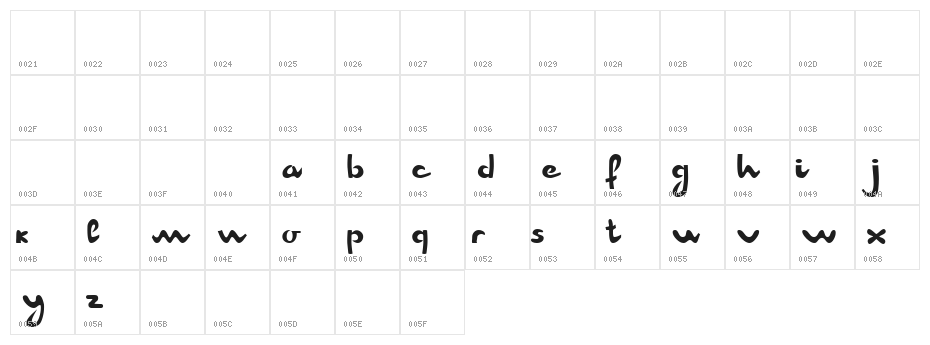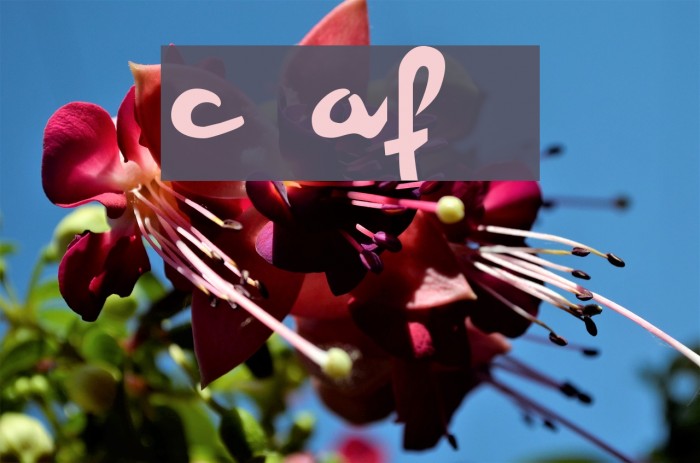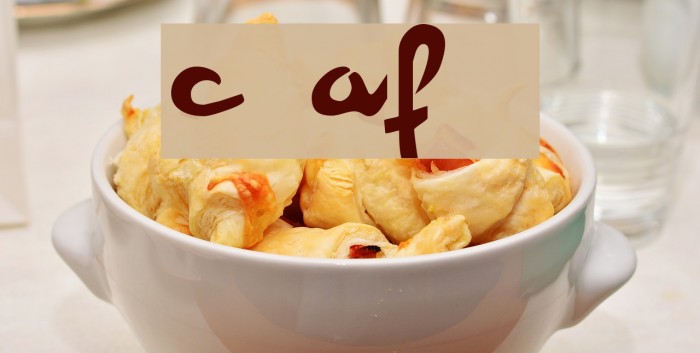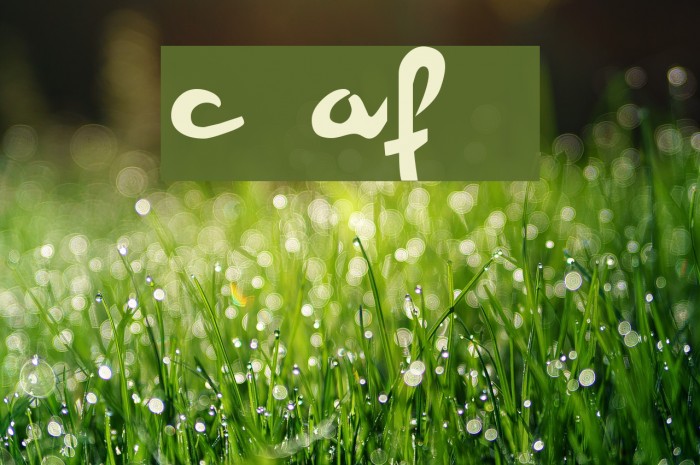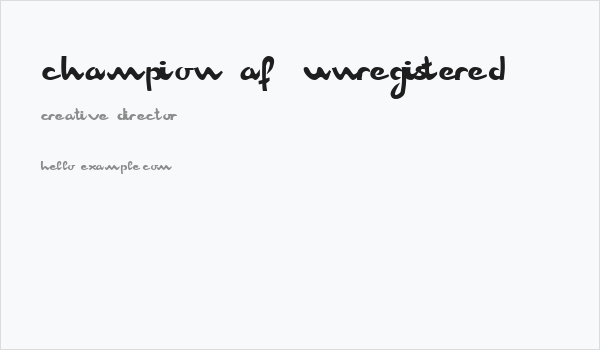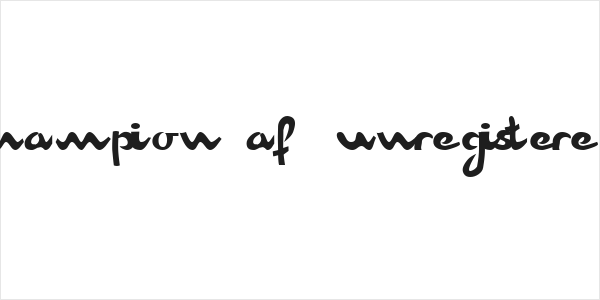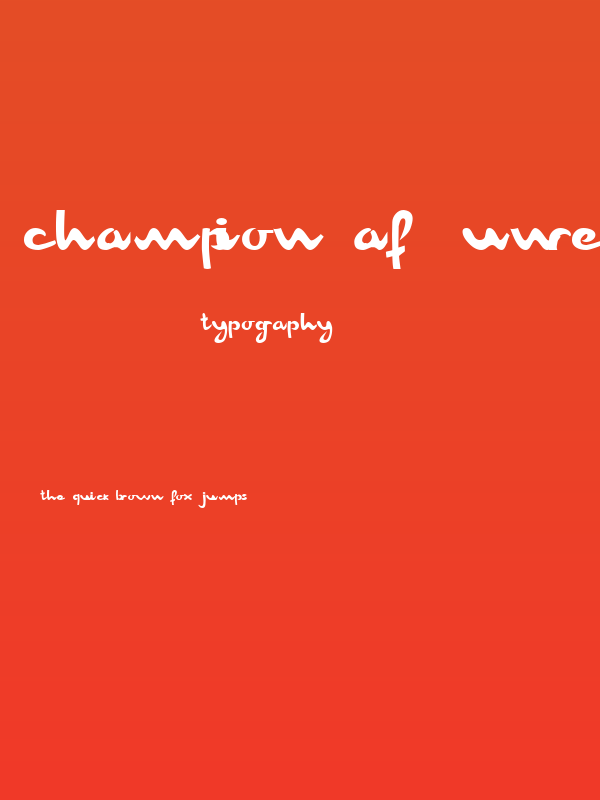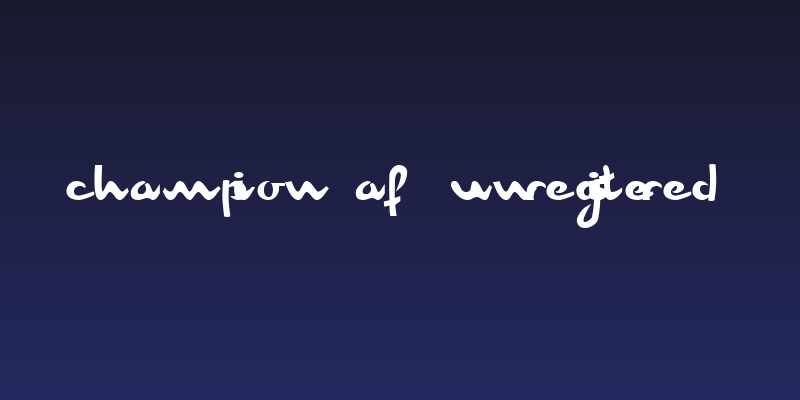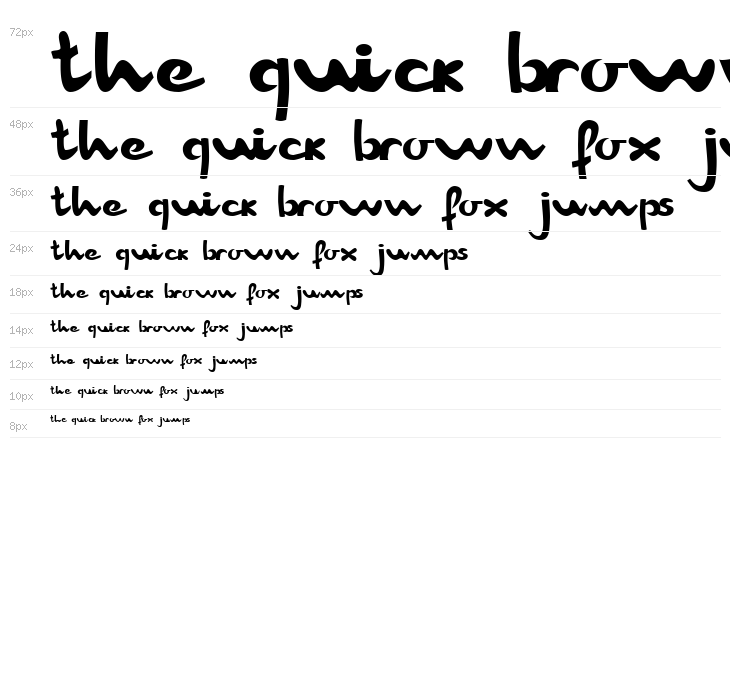
Champion AF [unregistered] Font
Champion AF [unregistered] Description
This font features a bold and playful handwritten style with a distinctively casual and artistic flair. The letters are characterized by their thick, rounded strokes and a slightly irregular baseline, giving it a dynamic and lively appearance. The font's whimsical nature is enhanced by the unique shapes of certain characters, such as the looped 'g' and the curvy 'f'. The overall design is cohesive, with a consistent stroke width that maintains readability while adding a touch of personality. This font is well-suited for creative projects that require a personal touch, such as invitations, greeting cards, or branding materials that aim to convey a sense of fun and approachability.
| Overall Style | Playful, Artistic |
| Proposed Projects | Ideal for invitations, greeting cards, playful branding, and creative projects. |